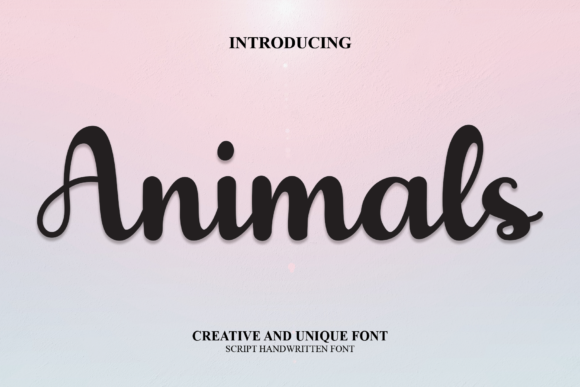
Introducing Animals Font: Elevate Your Designs with Elegance and Sophistication
In the world of typography, fonts play a crucial role in conveying the tone and personality of a design. For designers and crafters seeking to add a touch of elegance and sophistication to their projects, Animals Font is an exceptional choice. This beautiful script font boasts a contemporary feel, perfect form, and a balanced, varied aesthetic that is sure to enhance the beauty of your creations.
What Makes Animals Font Stand Out?
Animals Font is not just another script font; it’s a carefully crafted typeface designed to strike the perfect balance between style and readability. Here are a few key features that make it stand out:
- Contemporary Feel: With its modern and clean lines, Animals Font brings a fresh perspective to the world of script typography. Its contemporary feel makes it versatile enough to be used in a wide range of design projects, from branding and advertising to packaging and digital media.
- Perfect Form: The font’s elegant and refined appearance is characterized by its perfect form. Each letter is meticulously designed to ensure that the font looks great in any context, whether used for headings, titles, or body text.
- Balanced and Varied: One of the key strengths of Animals Font is its balanced and varied design. The strokes are neither too thin nor too thick, creating a harmonious and visually appealing effect. This balance ensures that the font remains legible even at smaller sizes, making it incredibly versatile.
Why Choose Animals Font for Your Projects?
For designers and crafters looking to elevate their projects, Animals Font offers several compelling reasons to be your top choice:
- Elegance and Sophistication: Whether you’re working on a luxury brand identity, a high-end product packaging, or an elegant wedding invitation, Animals Font adds a touch of class and sophistication that is hard to match.
- Versatility: The font’s versatility is one of its most significant advantages. It can be used in both digital and print projects, making it a valuable addition to any designer’s toolkit.
- Easy to Read: Despite its elegant appearance, Animals Font is remarkably easy to read. This makes it an excellent choice for body text, as well as for headlines and titles.
- Unique and Memorable: In a world where many designs look similar, Animals Font helps you stand out. Its unique and memorable appearance ensures that your projects leave a lasting impression.
How to Use Animals Font Effectively
To make the most of Animals Font, consider the following tips:
- Pair it with Contrasting Fonts: For maximum impact, pair Animals Font with fonts that offer a contrasting style. This will help create visual interest and make your design more dynamic.
- Experiment with Sizes and Colors: Don’t be afraid to experiment with different sizes and colors. Animals Font looks great in a variety of colors and can be scaled up or down depending on your project’s requirements.
- Use it for Headlines and Titles: While Animals Font is easy to read, it’s particularly stunning when used for headlines and titles. Its elegant appearance makes it perfect for adding a touch of sophistication to your design.
Animals Font is a beautiful, elegant script font that brings a contemporary feel and perfect form to your designs. Its balanced and varied aesthetic makes it an incredibly versatile typeface suitable for a wide range of projects. Whether you’re a designer looking to elevate your branding and advertising projects or a crafter seeking to add a touch of elegance to your handmade goods, Animals Font is an excellent choice. With its unique appearance, readability, and versatility, Animals Font is sure to enhance the beauty of your projects and leave a lasting impression on your audience.